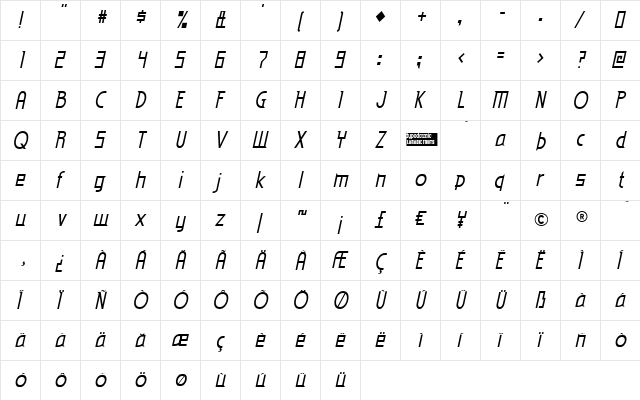
Eden Mills Italic
Design Context for Eden Mills Typeface
Eden Mills takes a measured approach to typography — its balanced proportions and neutral character make it a reliable workhorse for both digital and print work. Its italic angle brings a sense of urgency and motion to the letterforms.
Pro Tip: Use Eden Mills for emphasis, pull quotes, and subheadings where its slanted energy can add rhythm to the layout.